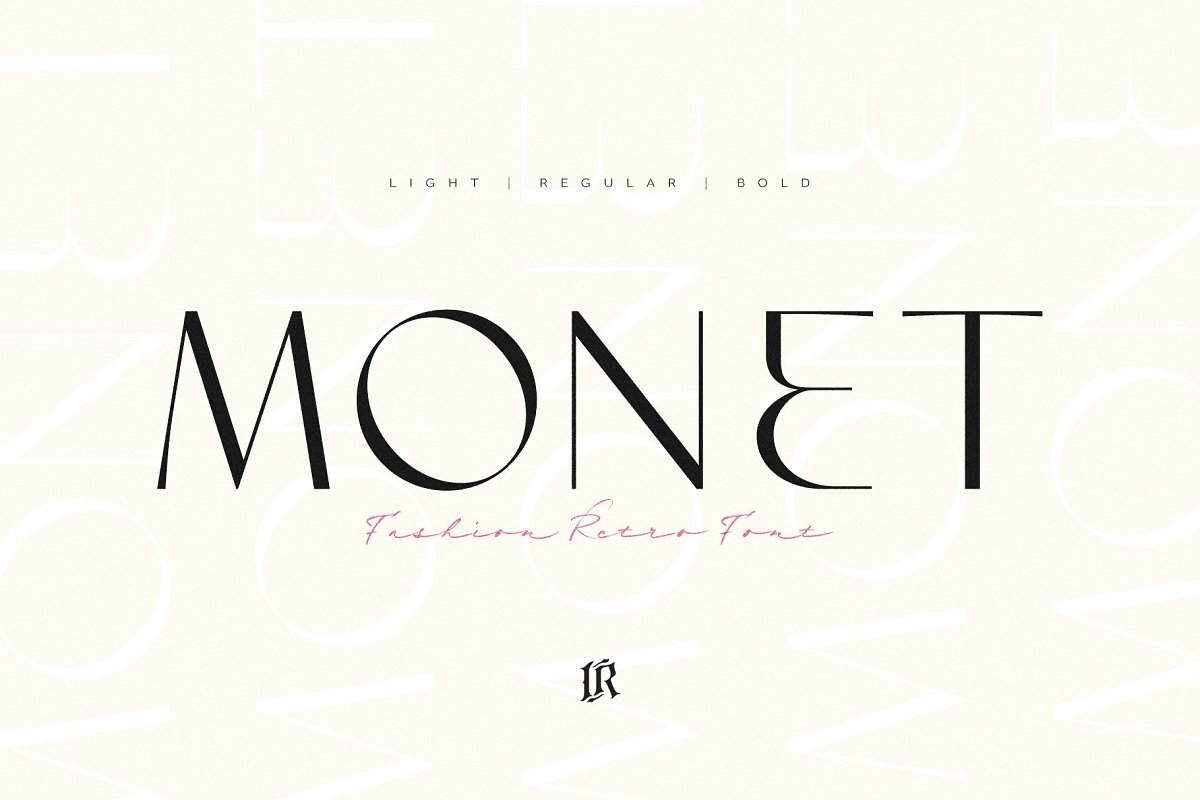
The Modern Typography BundleThis bundle contains my 10 best selling unique typefaces – typefaces with dozens of unique ligatures and alternates, Fonts Insluded:Olive Village – Vintage Font https://crmrkt, com/pPgkazAlgiers – A Modern Sans Serif https://crmrkt, com/JdVWDMGrande https://crmrkt, com/JKJp21Ribolla – Blackletter Font https://crmrkt, com/W0bklWHanesy – Modern Serif Font https://crmrkt